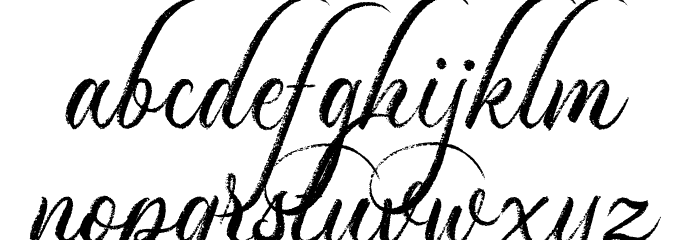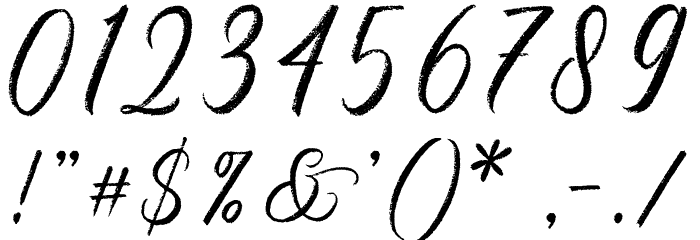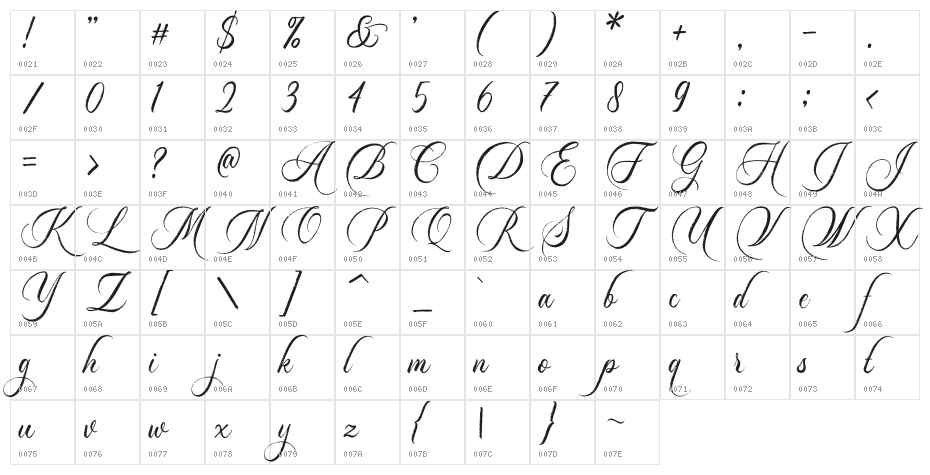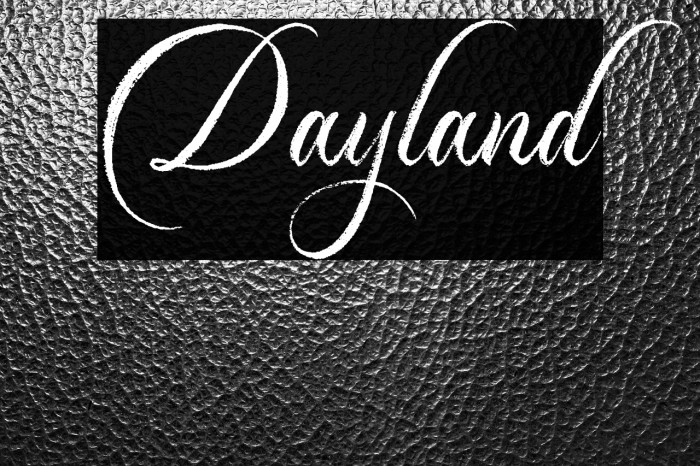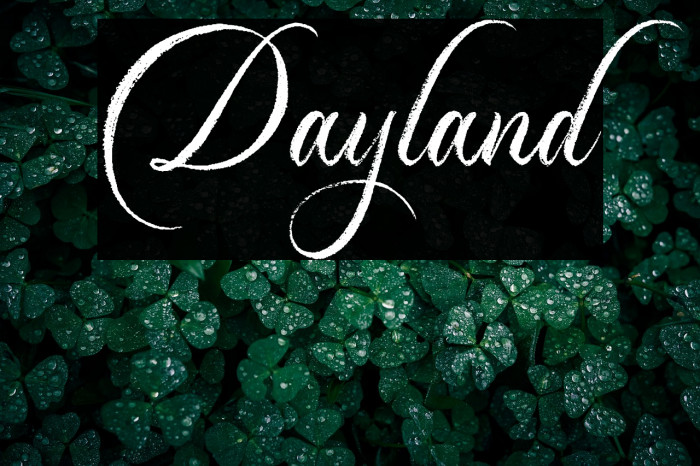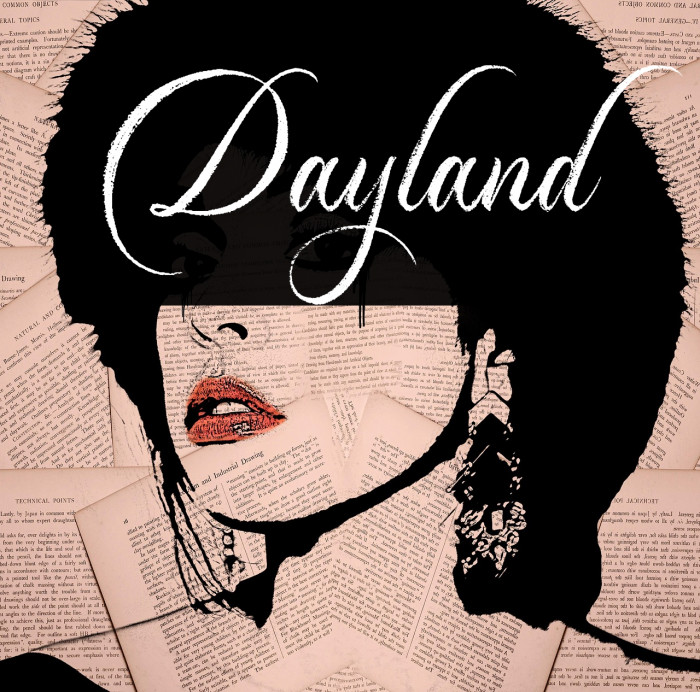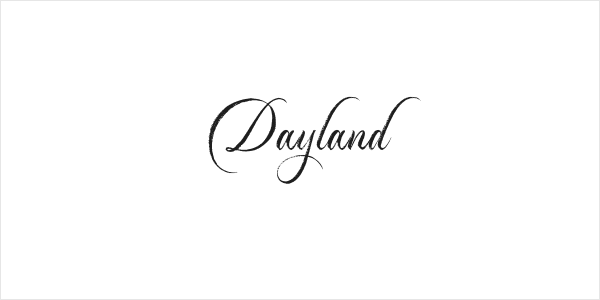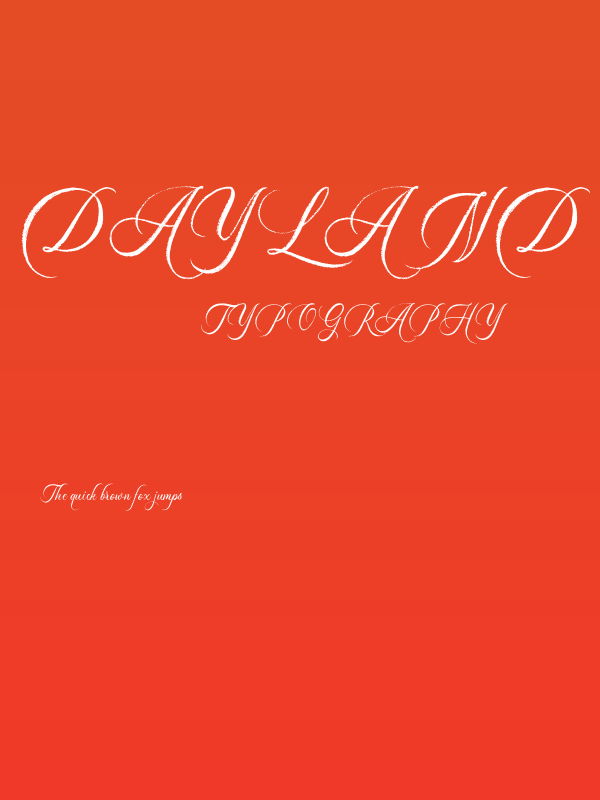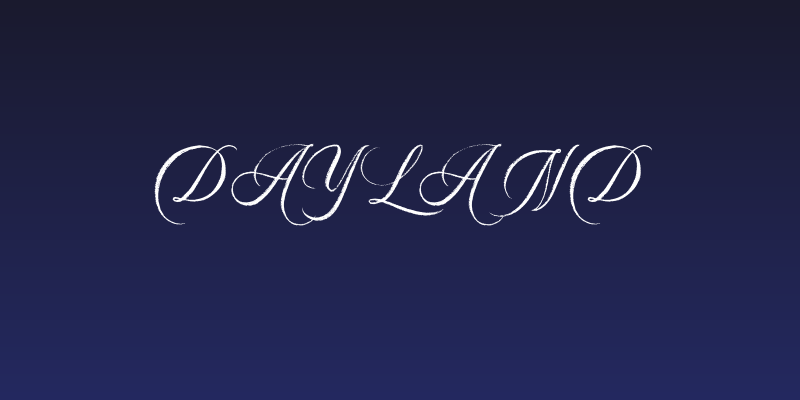
Dayland Font
This elegant script font features a fluid and graceful design, characterized by its sweeping curves and delicate strokes. The uppercase letters are ornate, with intricate loops and flourishes that add a touch of sophistication. The lowercase letters maintain a consistent flow, enhancing readability while retaining an artistic flair. The numerals and special characters are crafted with the same attention to detail, ensuring a cohesive look across all text. This font's high contrast between thick and thin strokes adds to its dramatic appearance, making it ideal for formal and decorative applications.
An elegant script font with sweeping curves and high contrast, perfect for decorative use.
- Proposed Projects: Ideal for wedding invitations, elegant branding, luxury product packaging, and decorative headings.
- Use Case: Logos, Headlines, Invitations